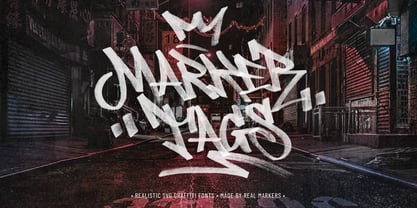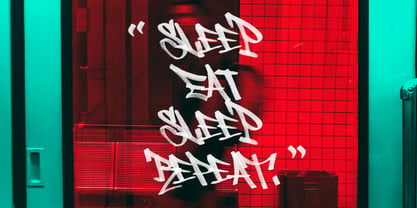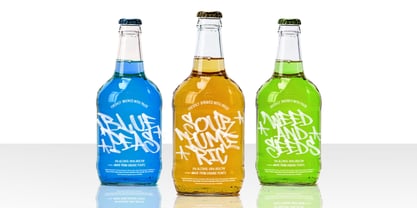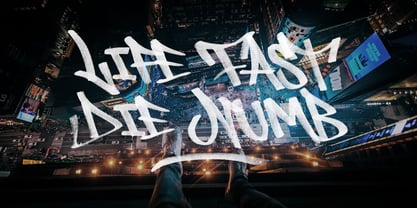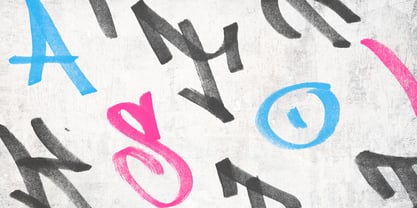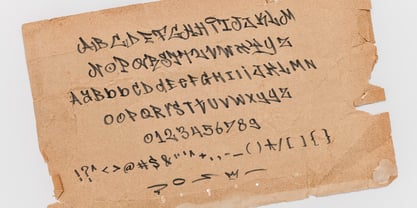
Marker Tags SVG
by Tomatstudio
The Marker Tags SVG Font Family was designed by Cipto Bagus Prakarso and published by Tomatstudio. Marker Tags SVG contains 1 styles. More about this family
Created with real markers, I scan the images and choose the best letter for the fonts. I think it's perfect for you to get realistic graffiti and grunge style, it's blend with the real things with SVG fonts.
As always this is graffiti realistic fonts so I recommend you to adjust again the kerning and spacing although I was doing the best way possible to adjust the kerning and spacing to make it look like real graffiti fonts, based on my graffiti experience at street.
You'll get SVG fonts , also several alternatives glyphs, and custom glyphs to make your Grafiti tag more realistic.